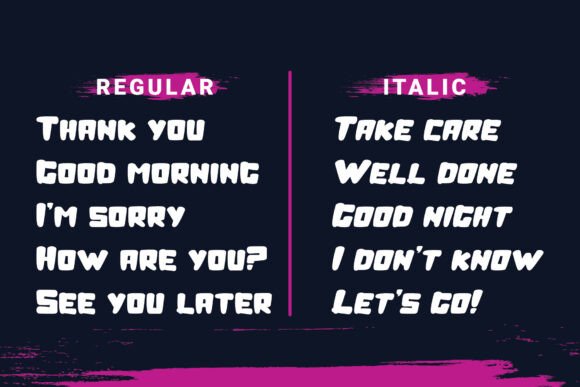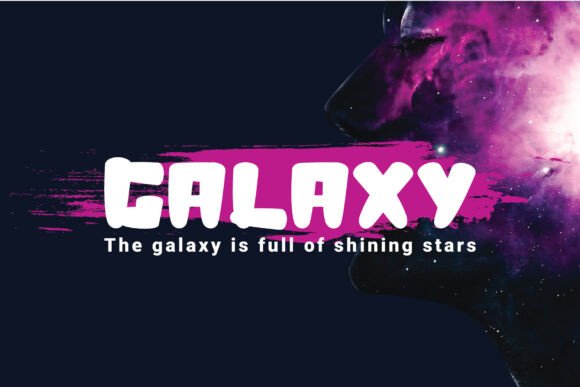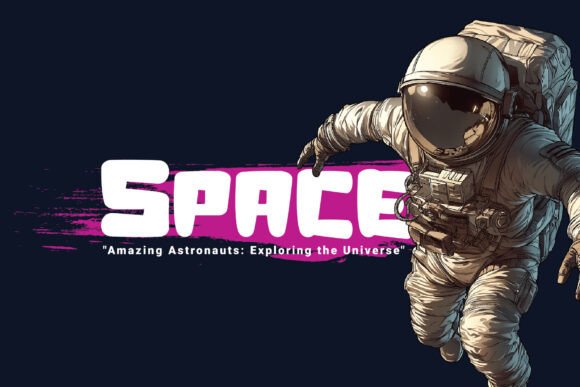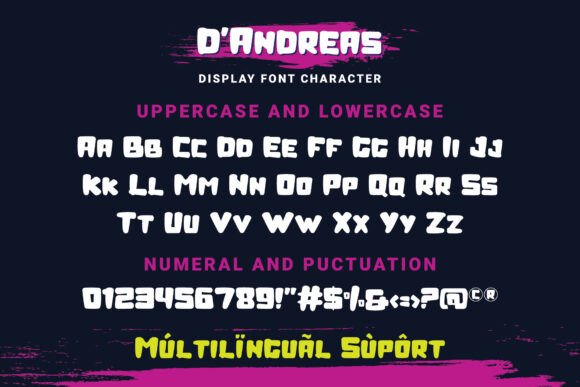
Unveiling D’andreas Font: A Timeless Typeface for Creative Expression
In the world of typography, fonts play a crucial role in conveying messages, evoking emotions, and creating lasting impressions. Among the numerous typefaces available, D’andreas font stands out for its unique blend of modern versatility, bold robustness, and a hint of nostalgia. This dynamic font is designed to infuse a radiance of joy into various creative projects, making it an ideal choice for designers and crafters seeking to add a touch of personality to their work.
The Distinctive Characteristics of D’andreas Font
D’andreas font boasts a distinct, vintage vibe that transports users on an immersive trip through time. Its welcoming and easy-to-use style makes it an excellent tool for creative pursuits, allowing designers to craft engaging and memorable content. The typeface’s unique characteristics include:
- Modern Versatility: D’andreas font seamlessly adapts to various design contexts, from product packaging to social media campaigns, ensuring a consistent visual identity across different platforms.
- Bold Robustness: The font’s sturdy and confident appearance makes it perfect for headlines, titles, and other attention-grabbing elements.
- Hint of Nostalgia: D’andreas font’s vintage undertones evoke a sense of nostalgia, adding a touch of warmth and familiarity to designs.
Applications of D’andreas Font
The versatility of D’andreas font makes it an excellent choice for a wide range of creative projects, including:
- Product Packaging: D’andreas font adds a playful and eye-catching touch to product labels, making them stand out on store shelves.
- Posters and Flyers: The font’s bold and attention-grabbing style makes it perfect for creating striking posters and flyers that capture audiences’ attention.
- Social Media Campaigns: D’andreas font’s modern and engaging appearance ensures consistency across various social media platforms, helping brands build a strong online presence.
Why Choose D’andreas Font?
D’andreas font offers several advantages that make it an attractive choice for designers and crafters:
- Easy to Use: The font’s clean and intuitive design makes it easy to read and work with, even for those without extensive typography experience.
- Playful Personality: D’andreas font injects a touch of playfulness and whimsy into designs, allowing creators to express their unique voice and style.
- Timeless Appeal: The font’s vintage undertones ensure it remains relevant and stylish, even as design trends evolve.
Tips for Using D’andreas Font Effectively
To maximize the impact of D’andreas font, consider the following tips:
- Experiment with Font Sizes: D’andreas font’s bold and robust style makes it suitable for use in various font sizes, from headlines to body text.
- Combine with Other Fonts: Pair D’andreas font with complementary typefaces to create visually appealing and harmonious design combinations.
- Pay Attention to Color: Select colors that complement the font’s vintage and playful personality, ensuring a cohesive and engaging visual identity.
D’andreas font is a dynamic and versatile typeface that offers a unique blend of modern style, bold robustness, and nostalgic charm. Its welcoming and easy-to-use design makes it an excellent choice for designers and crafters seeking to add a touch of personality to their creative projects. With its timeless appeal and adaptability, D’andreas font is poised to become a go-to typeface for various design applications. Whether you’re working on product packaging, posters, social media campaigns, or other creative pursuits, D’andreas font is an excellent choice for injecting a radiance of joy and playfulness into your work.